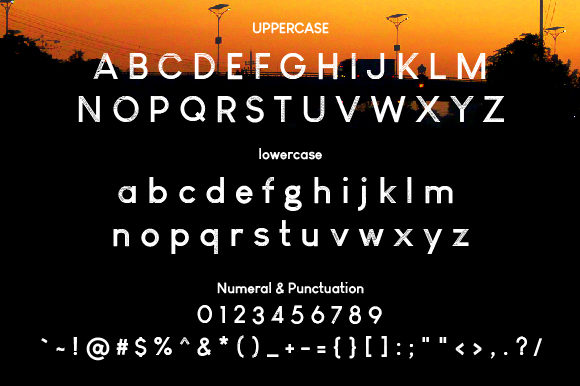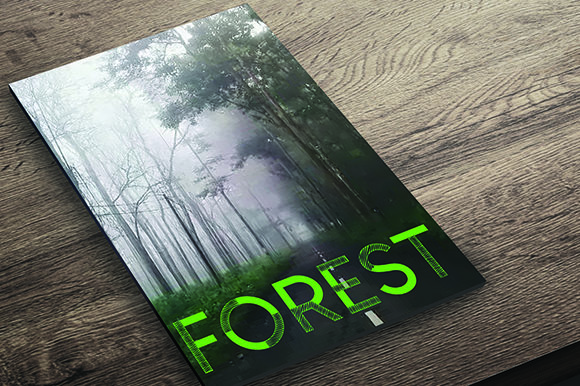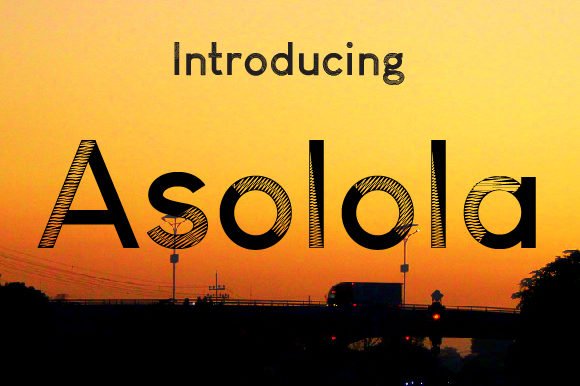
Introduction to Asolola Font
The Asolola is an unique display typeface.
It’s amazing characters will give your design a striking touch It’s perfect for name cards, posters, logos magazines, covers, banners, and large-scale artwork,.
Why Choose Asolola Font?
Asolola Font offers exceptional quality and versatility, making it a valuable addition to your design toolkit. Whether you’re creating for personal projects or commercial use, Asolola Font delivers professional results.